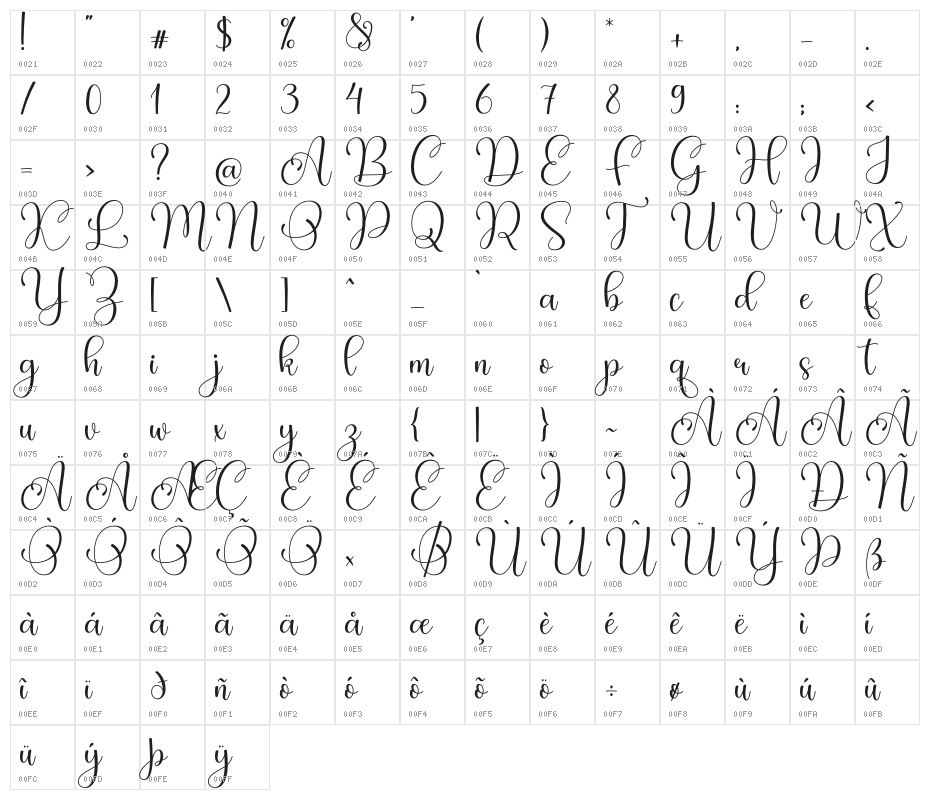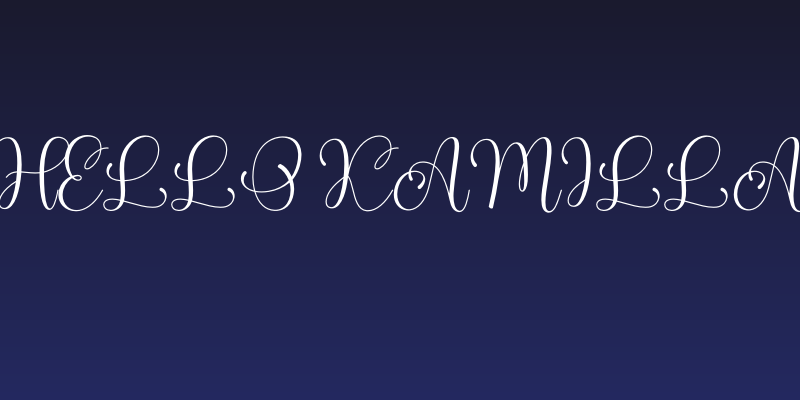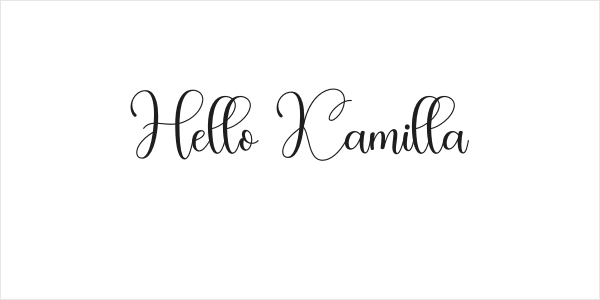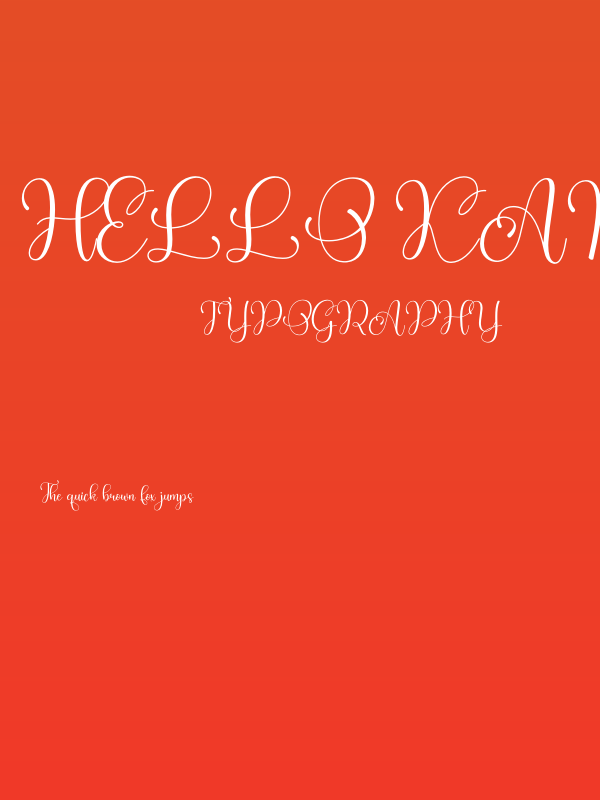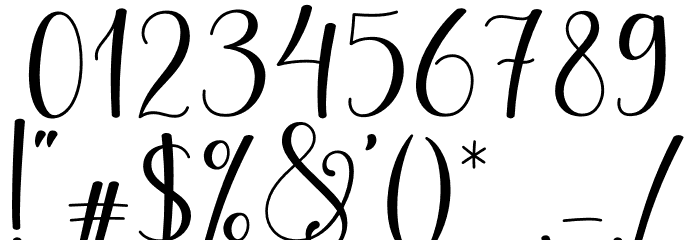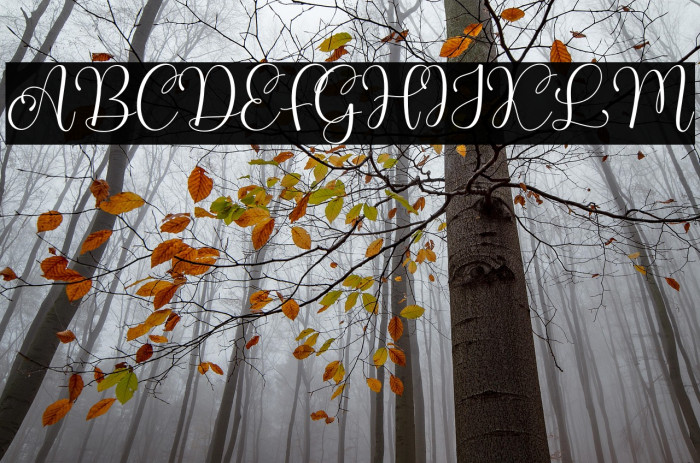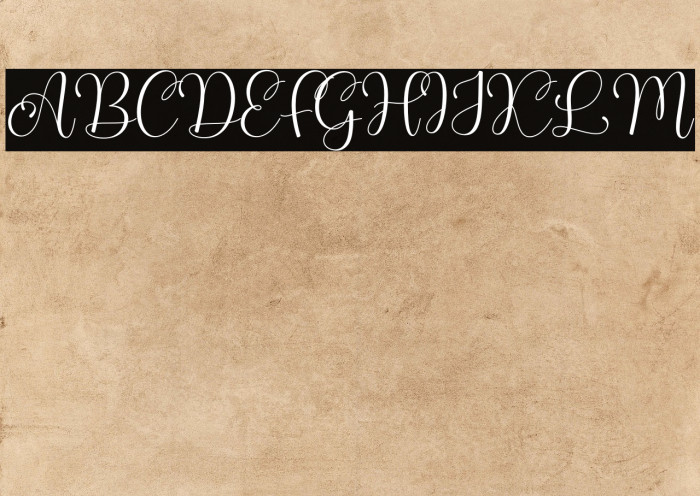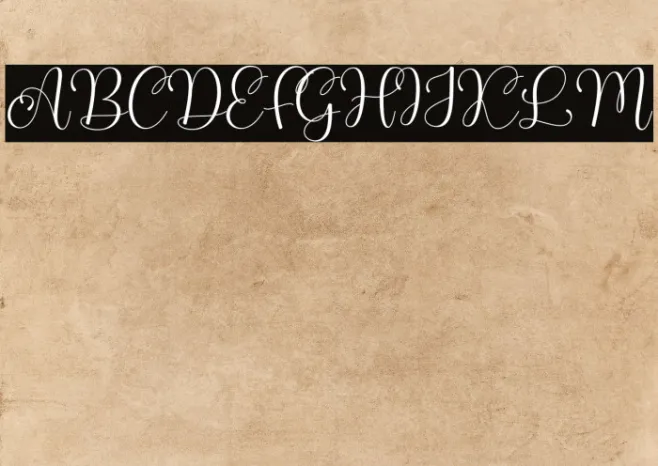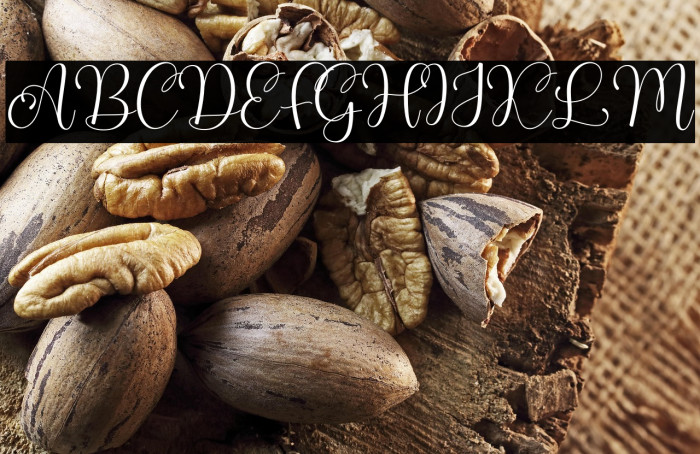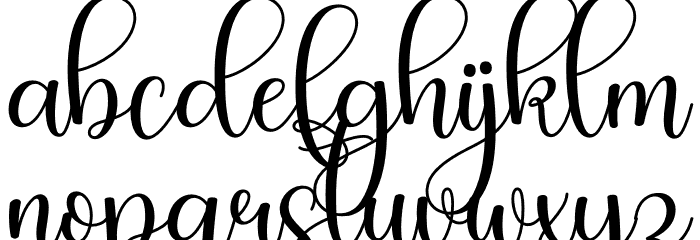
Hello Kamilla Font
Hello Kamilla Description
This font exhibits a graceful and flowing script style, characterized by its elegant loops and swirls. The uppercase letters are particularly ornate, with each character featuring unique flourishes that add a touch of sophistication. The lowercase letters maintain a consistent style, with smooth curves and a slightly playful demeanor. Numbers and special characters are designed to match the overall aesthetic, ensuring a cohesive look across all text. The font's design is both decorative and legible, making it suitable for a variety of creative applications.